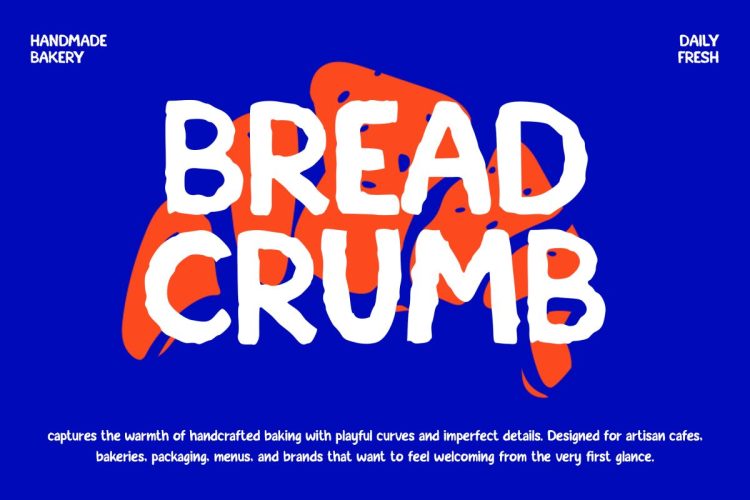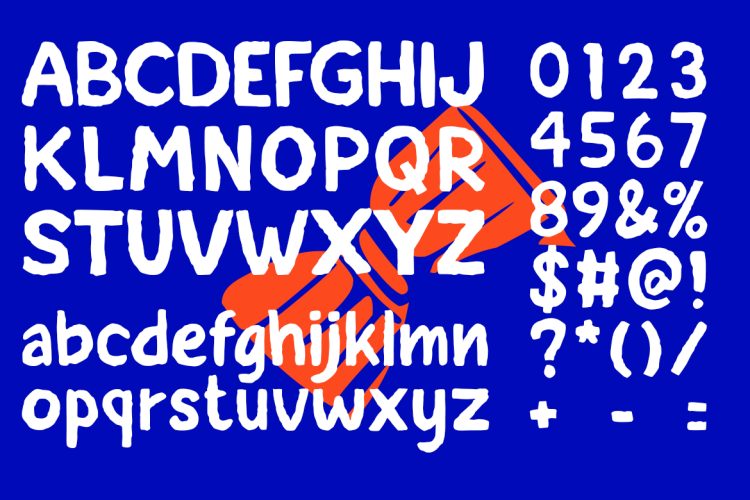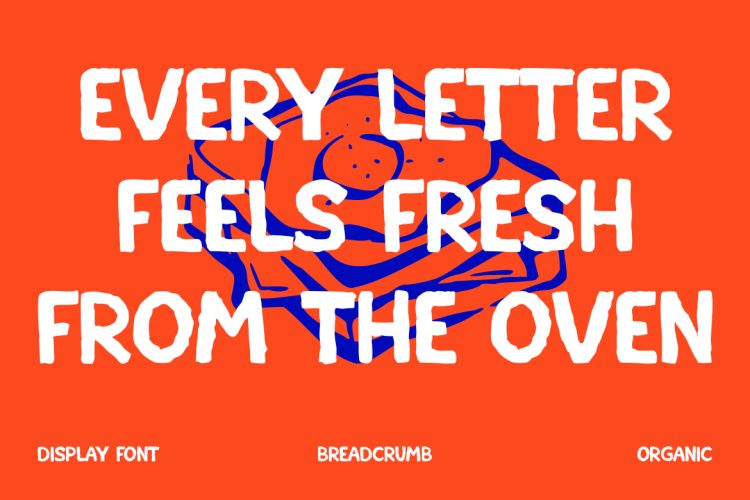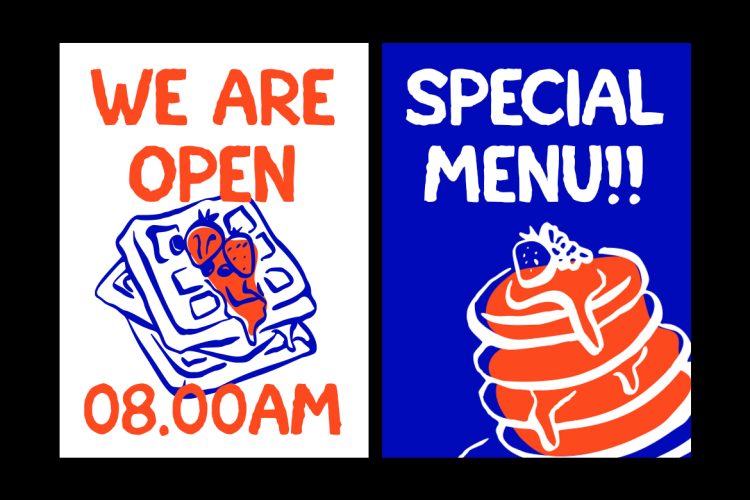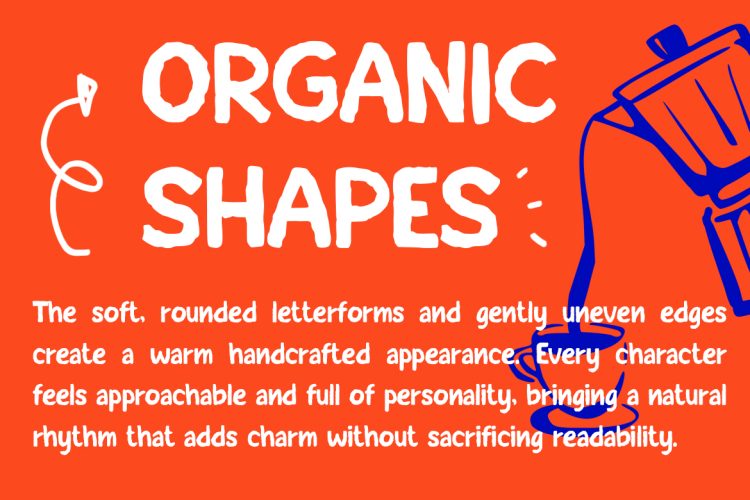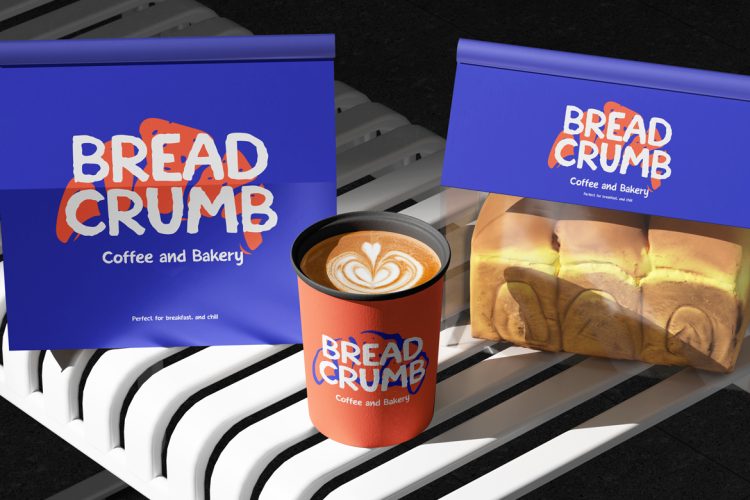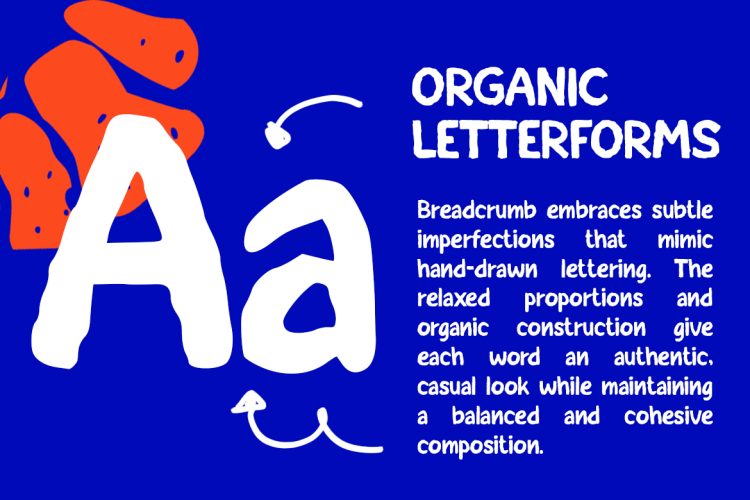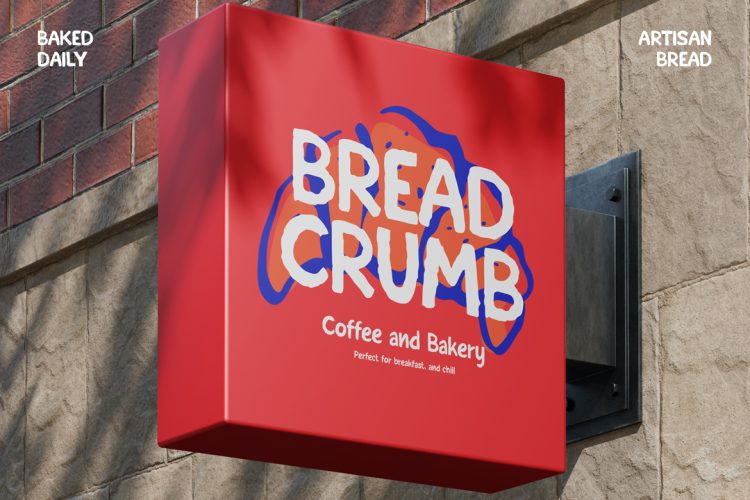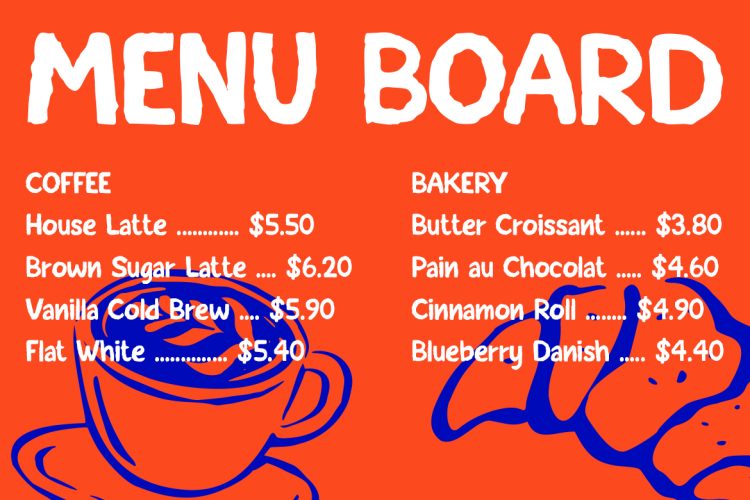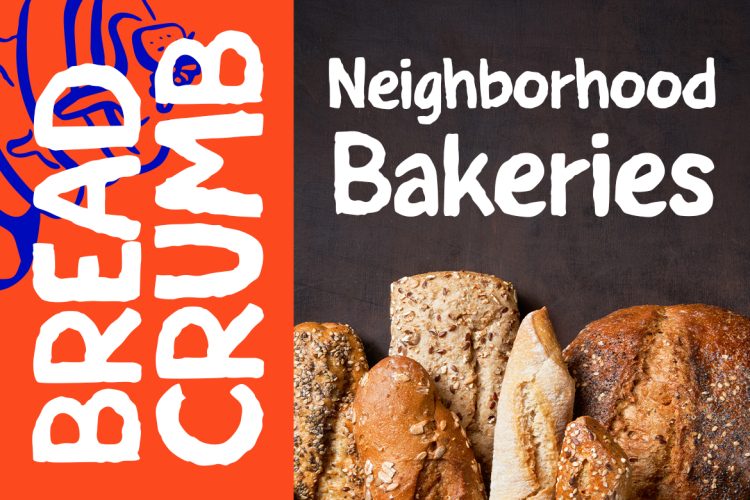
Breadcrumb โ Fresh, Organic Letterforms for Fun Branding & Happy Designs
Kids Font Breadcrumb brings a cheerful handmade personality with soft, rounded letterforms. Its gently uneven edges create a warm and organic appearance that instantly feels friendly. Inspired by freshly baked bread, this playful display font delivers a welcoming style while remaining bold and easy to read. Moreover, every character is designed with a natural rhythm that makes headlines feel lively and expressive. As a result, your designs become more memorable without losing clarity. Whether you are creating packaging, branding, posters, or social media graphics, Breadcrumb adds playful energy and handcrafted charm. In addition, its organic shapes work beautifully in both digital and printed projects. This balance of personality and readability makes it a dependable choice for creative work of every size.
Kids Font Breadcrumb Who Is It For?
Additionally, Kids Font Breadcrumb is perfect for graphic designers, illustrators, content creators, and branding agencies. It is also a great choice for bakery owners, cafรฉs, restaurants, and small businesses that want a warm visual identity. Use it for logos, product packaging, menus, posters, stickers, greeting cards, book covers, labels, merchandise, website headers, advertising, and social media content. Furthermore, the playful style pairs effortlessly with colorful illustrations, hand-drawn graphics, and modern layouts. Therefore, your projects feel inviting, fresh, and full of personality. It also works well for children’s events, food festivals, school projects, seasonal promotions, and creative marketing campaigns that need a fun and approachable display font.
Bring Warmth to Every Design